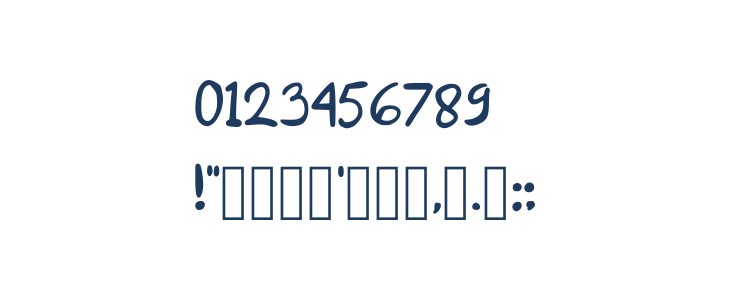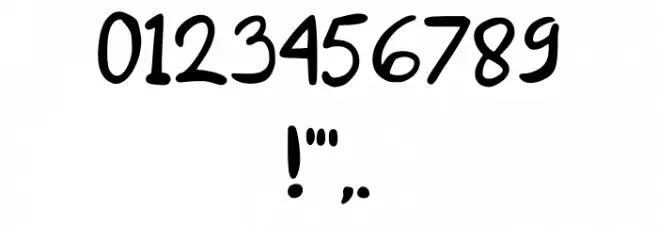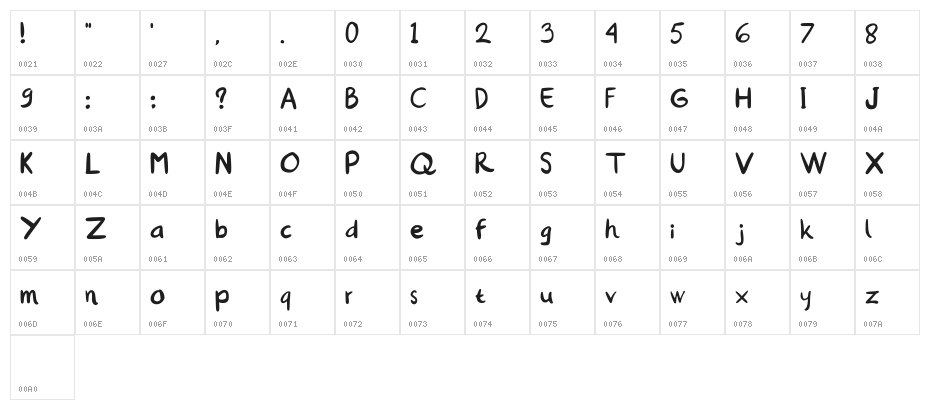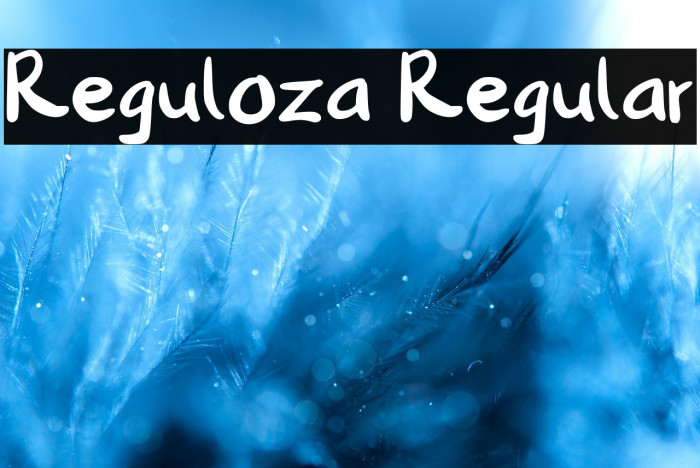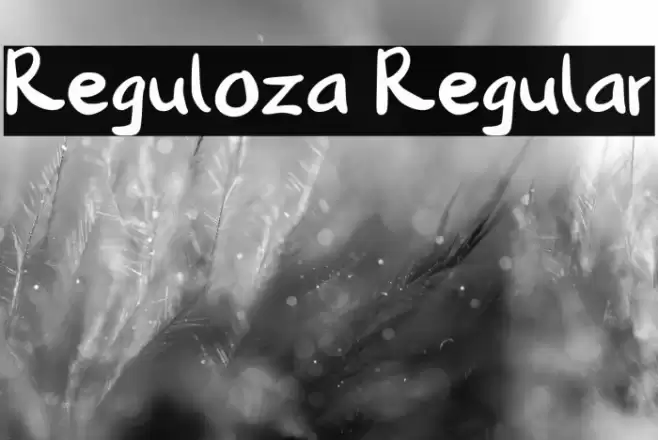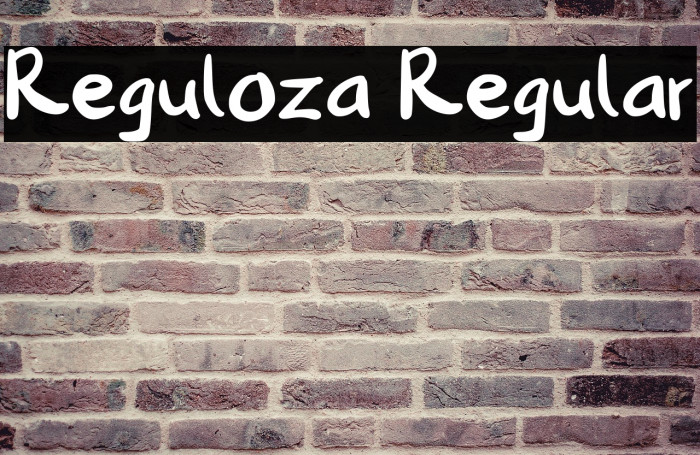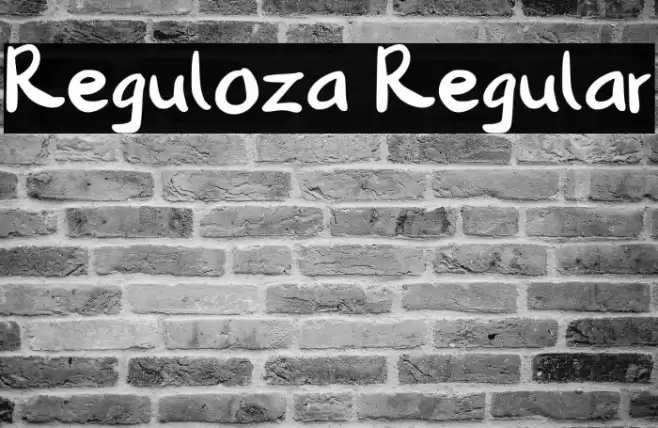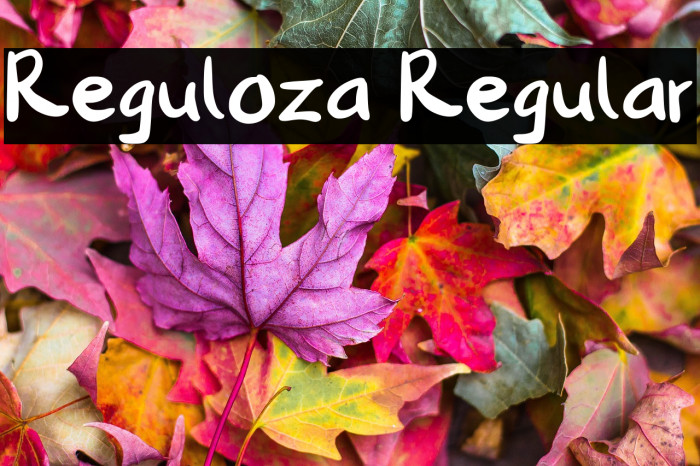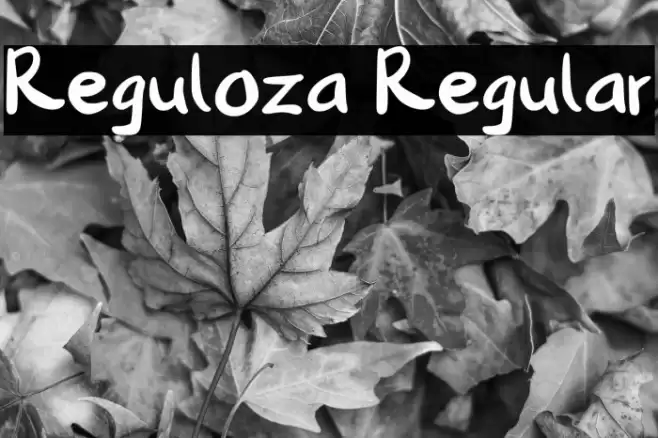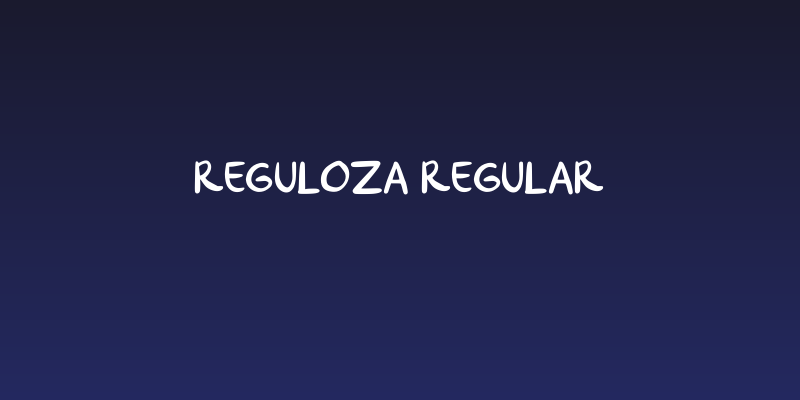
Reguloza Regular Font
Reguloza Regular Description
This font features a playful and informal style, characterized by its rounded and slightly irregular letterforms. The strokes are smooth and consistent, providing a friendly and approachable appearance. The uppercase letters are bold and prominent, while the lowercase letters maintain a casual and relaxed feel. The numbers are clear and easy to read, matching the overall style of the alphabet. Special characters are included, adding versatility for various uses. The font's design is well-suited for projects that require a touch of whimsy and creativity.
| Proposed Projects | Ideal for children's books, casual branding, playful posters, and creative invitations. |